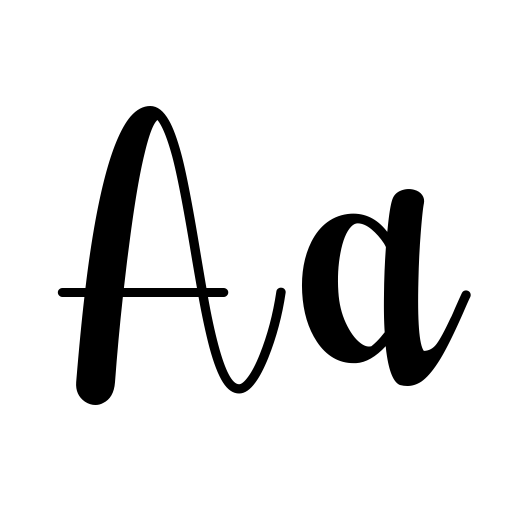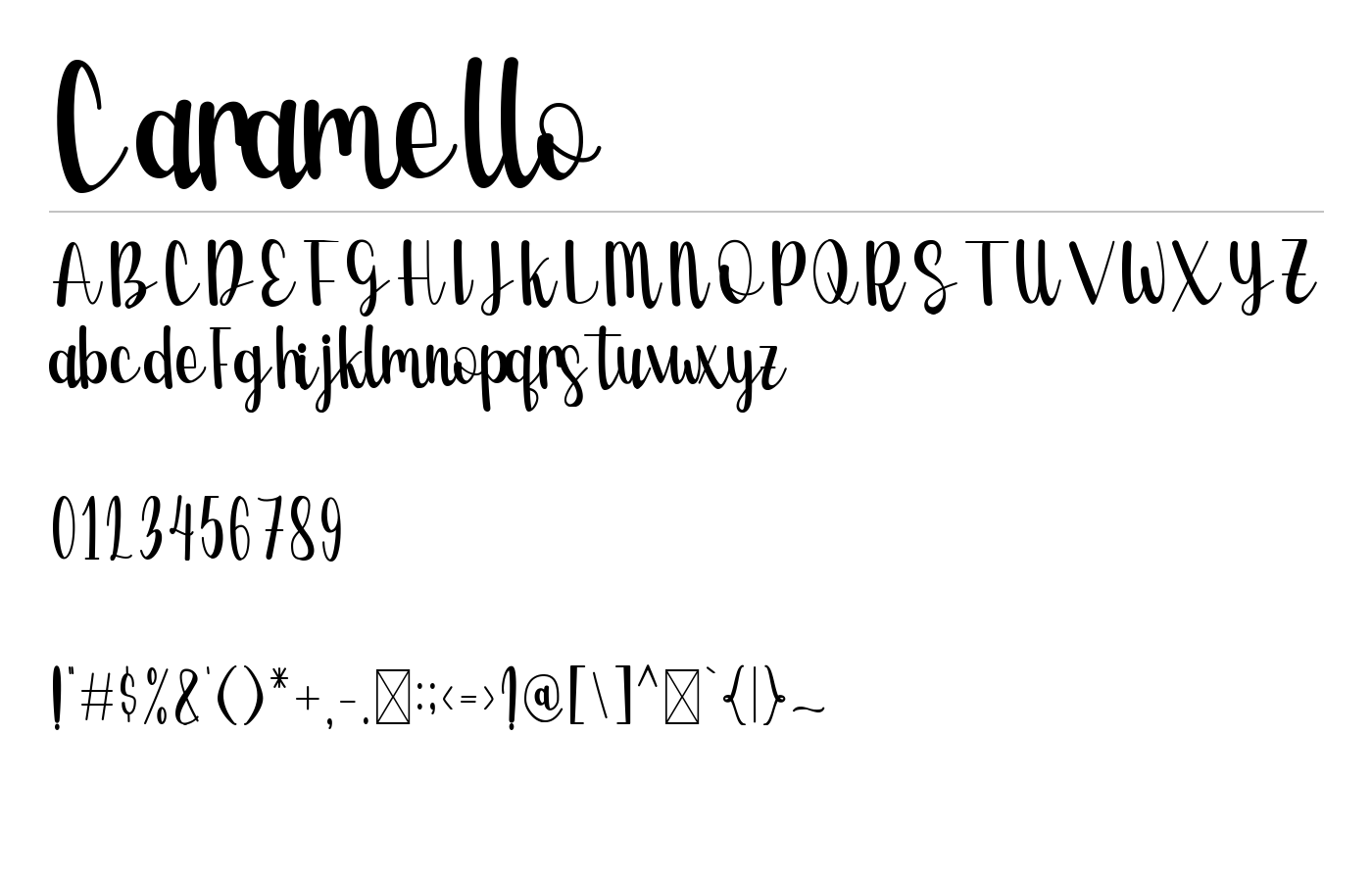
Caramello is a playful and whimsical handwritten script font with a tall, narrow structure and a lively flow. Its light weight and tall x-height make it elegant yet casual, ideal for adding a personal, friendly touch to branding, invitations, social media graphics, and creative headlines. This font’s unique letter shapes and informal charm bring a warm, approachable vibe that works beautifully for fun, youthful, and artistic designs.
Caramello Font
About Caramello Font